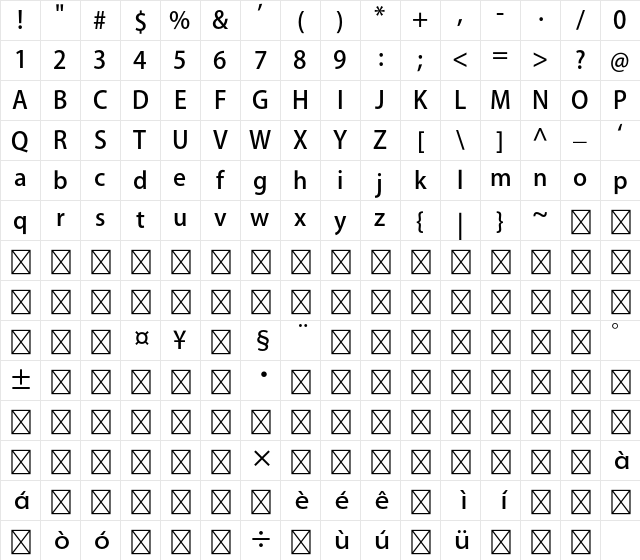
Adobe Heiti Std R
Design Context for Adobe Heiti Std
Adobe Heiti Std is a composed and adaptable typeface that performs quietly and consistently across a wide range of design contexts.
Pro Tip: Use Adobe Heiti Std in both headline and body roles to test its range before committing to a single application.